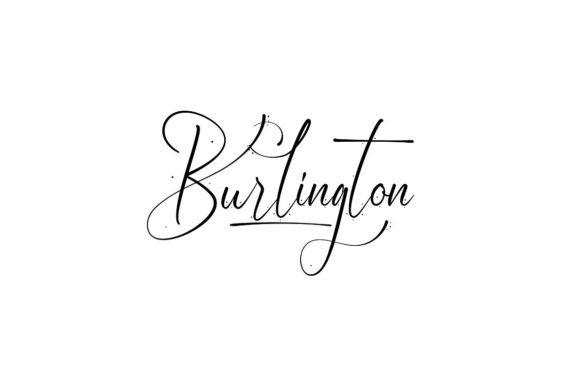
The Elegance of Burlington Font: A Designer’s Delight
I’ll never forget the time I was working on a luxury branding project for a high-end fashion client. I had spent hours perfecting the logo design, but something was missing. The font I had chosen just wasn’t elevating the design to the level I knew it could be. That’s when I stumbled upon the Burlington Font. Its thin, lettered, and luxurious script style immediately caught my eye, and I knew I had found the perfect fit. In this article, I’ll share my experience with Burlington Font, its features, and how to make the most of it in your designs.
An Honest Review of Burlington Font
- ✨ PUA Encoding: The Burlington Font is PUA encoded, which means you can access all glyphs and swashes with ease. This feature makes it incredibly versatile and perfect for a wide range of design projects.
- ✅ Luxurious and Elegant: The font’s thin lettered and luxurious script style exudes sophistication and elegance, making it perfect for high-end branding, packaging, and marketing materials.
- 💫 Highly Readable: Despite its elegant style, the Burlington Font remains highly readable, even at smaller font sizes.
While the Burlington Font is an excellent choice for many design projects, there are a few things to keep in mind:
- ⚠️ Limited Use in Body Text: Due to its elegant and cursive nature, the Burlington Font may not be the best choice for body text, especially in larger blocks of text.
- 🤔 Requires Some Practice to Master: The font’s swashes and glyphs can take some time to get used to, so be prepared to experiment and practice using them effectively.
The Backstory of Burlington Font
The Burlington Font was designed by a team of typographers who wanted to create a font that would evoke the luxury and elegance of high-end fashion brands. Inspired by classic script fonts, they crafted a unique and sophisticated design that would meet the needs of modern designers. The result is a font that is both timeless and contemporary, perfect for a wide range of design projects.
| Font Name | Burlington Font |
| Author | NihStudio |
Q: What is PUA encoding, and how does it benefit designers?
A: PUA (Private Use Area) encoding allows designers to access a wide range of glyphs and swashes, making it easier to create unique and customized designs.
Q: Is the Burlington Font suitable for body text?
A: While the Burlington Font is highly readable, its elegant and cursive nature makes it more suitable for headings and titles rather than body text.